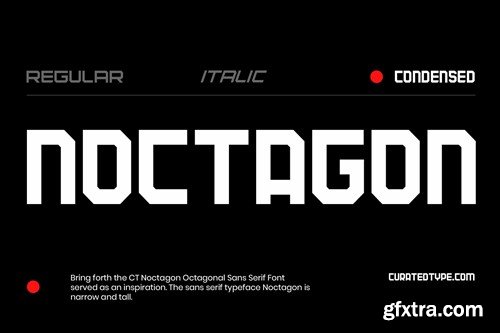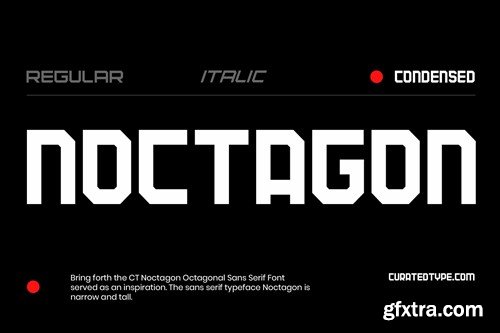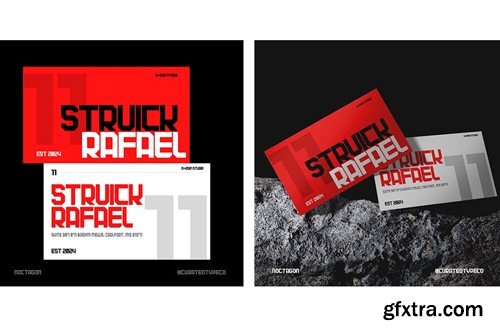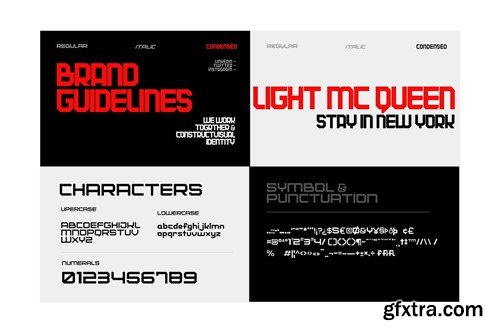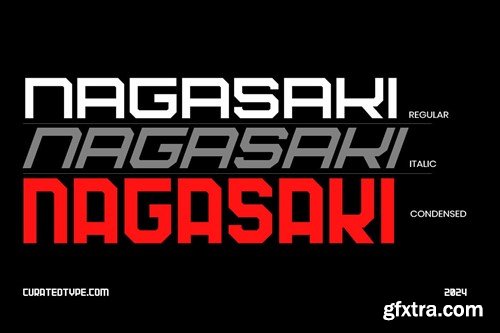
Bring forth the CT Noctagon Octagonal Sans Serif Font served as an inspiration. The sans serif typeface Noctagon is narrow and tall. If you want your creative ideas to stand out, try adding it to your list of possibilities; it works with a huge variety of tasks. Noctagon is a beautiful choice for any creative endeavor, retro or vintage design, lifestyle design such as logos, title, cover, branding, display, business card, magazine, poster, film/movie and more. Now you using Maderon to elevate you design or branding. Features: Langguange support: Afrikaans, Albanian, Asu, Basque, Bemba, Bena, Breton, Catalan, Chiga, Cornish, Danish, Dutch, English, Estonian, Faroese, Filipino, Finnish, French, Friulian, Galician, German, Gusii, Icelandic, Indonesian, Irish, Italian, Kabuverdianu, Kalenjin, Kinyarwanda, Luo, Luxembourgish, Luyia, Machame, Makhuwa-, Meetto, Makonde, Malagasy, Manx, Morisyen, Northv Ndebele, Norwegian, Bokmål, Norwegian, , Nynorsk, Nyankole, Oromo, Portuguese, Quechua, Romansh, Rombo, Rundi, Rwa, Samburu, Sango, Sangu, Scottish, Gaelic, Sena, Shambala, Shona, Soga, Somali, Spanish, Swahili, Swedish, Swiss, German, Taita, Teso, Uzbek (Latin), Volapük, Vunjo, Zulu Thank you for visit our store and Hope you enjoy our font!!